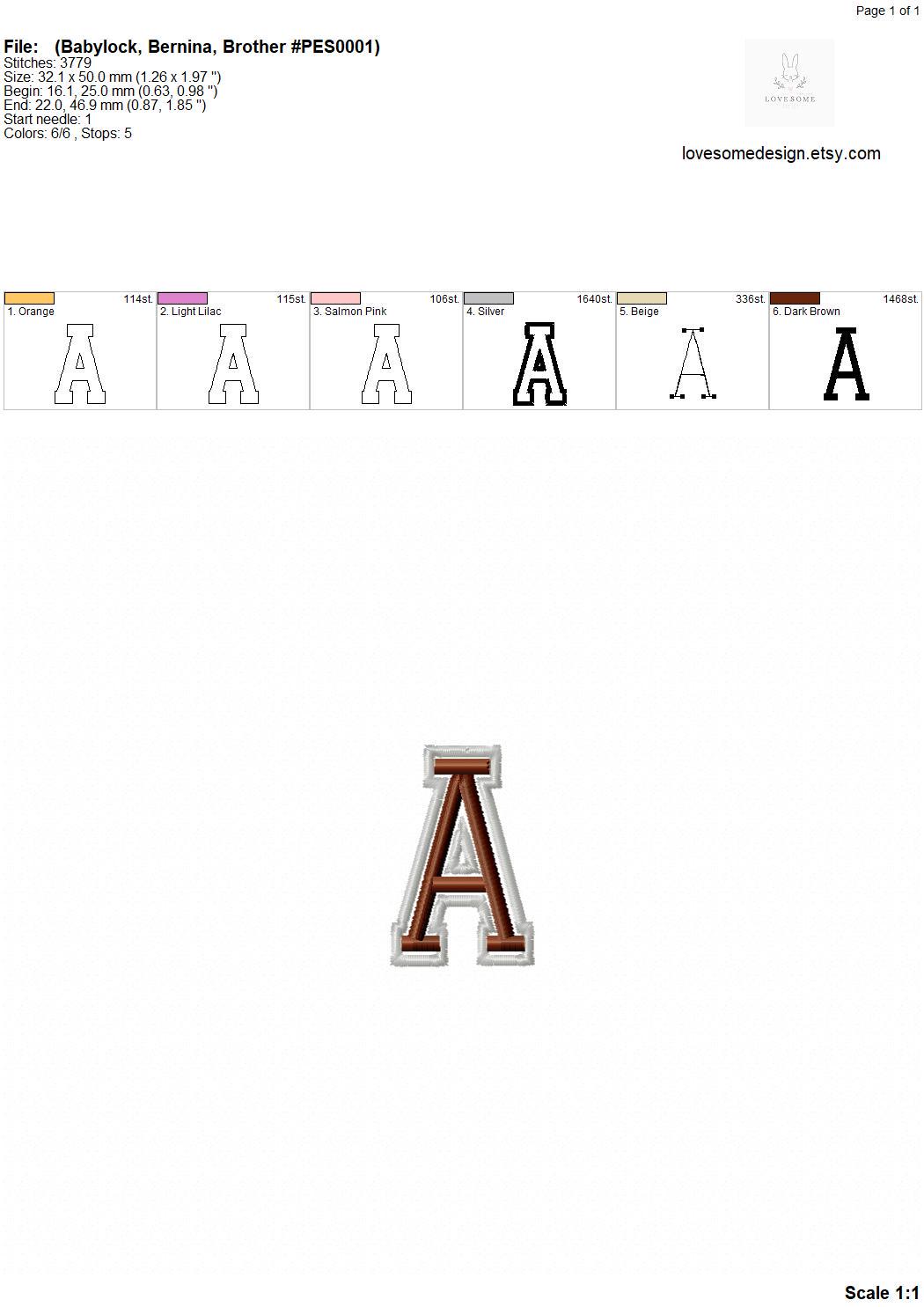
College Applique 2inch Puff Font A-Z Machine Embroidery Sports Letters, Puff 3D Foam Embroidery Font Digital Download | Lovesome Design
This listing features a machine embroidery font set for puff stitch embroidery which includes embroidery files of 26 applique uppercase letters in 2inch size. (For the whole set, pls see the listing images.)
The stitching order can be seen on the technical data sheet given in our listings images. The first 4 stitching steps are for the applique. After the applique is complete, you lay the foam sheet and stitch last two steps for the puff 3d stitching of the letter on the top.